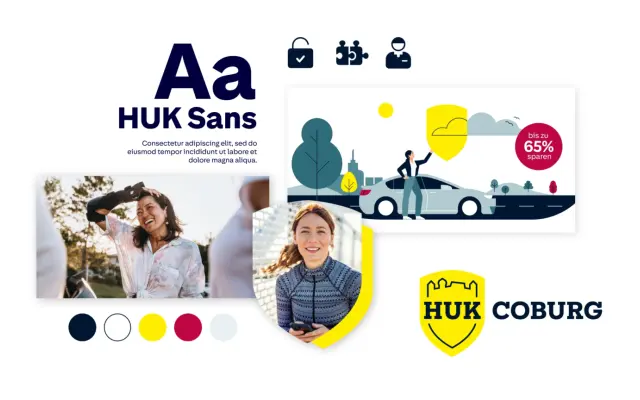
HUK-COBURG
Character Type · Henning Skibbe, Oleksandr Parkhomovskyy · 2024
A custom variable font family designed for German insurer HUK-COBURG by Character Type, including a slab serif logo variant, as part of a 2024 brand overhaul by Strichpunkt.
Comprising 16 styles across Normal and Condensed widths, the family was built to reflect HUK-COBURG's brand values of friendliness and accessibility, with a variable font included. A separate slab serif was drawn for the reworked logo, its serifs serving as a deliberate nod to the previous typeface. The character set was built to DIN 91379 standards, ensuring correct rendering of names from across the EU.
The page describes a friendly, accessible custom font family with a companion slab serif logo typeface; the primary family is a humanist-leaning sans-serif designed to communicate warmth and accessibility in a corporate brand context.